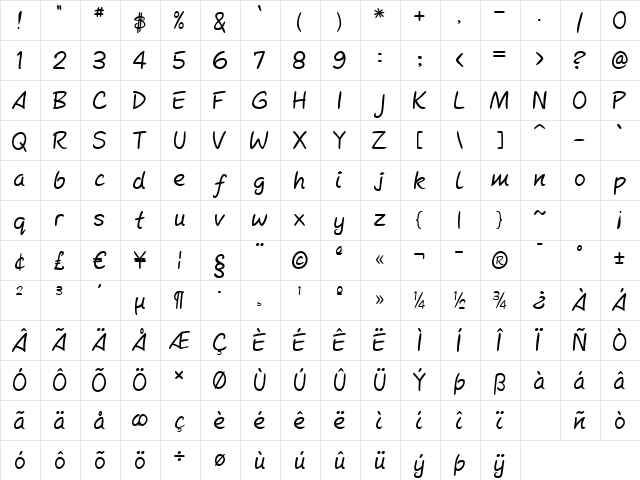
Mcgannahan Regular
Design Context for Mcgannahan Typeface
Mcgannahan is a composed and adaptable typeface that performs quietly and consistently across a wide range of design contexts.